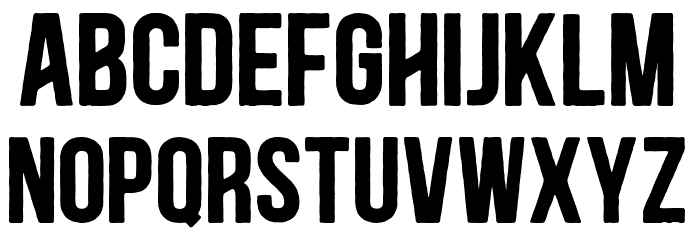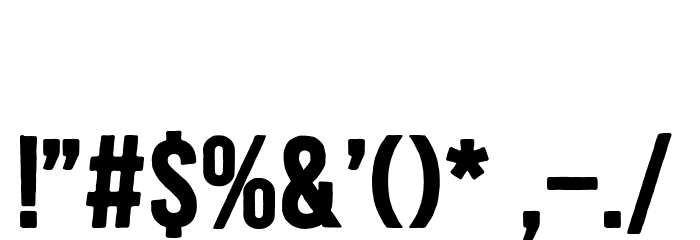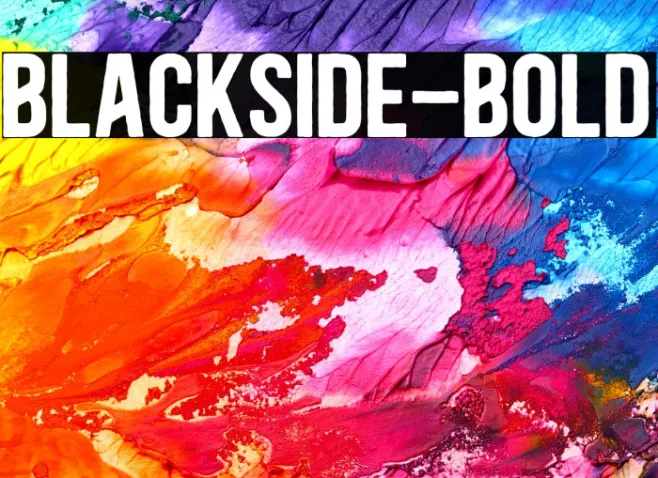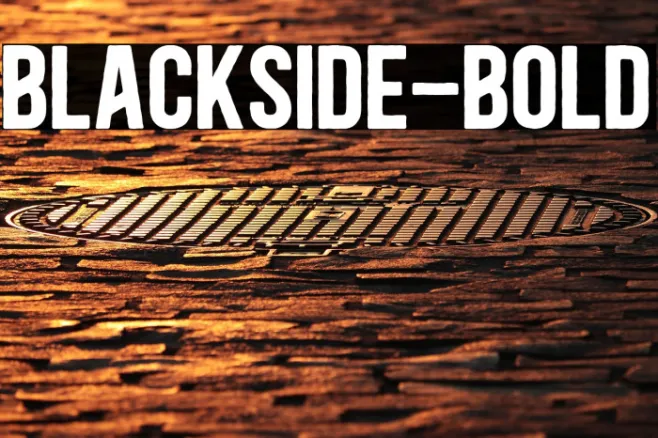
Blackside-Bold Font
This bold and impactful font features strong, thick strokes that convey a sense of power and confidence. The uppercase letters are uniform in height, with a slightly condensed width that emphasizes their boldness. The characters have a rugged, textured appearance, adding a touch of vintage charm. The font's design is straightforward yet striking, making it ideal for attention-grabbing headlines and titles. The special characters maintain the same bold style, ensuring consistency across all text elements.
A bold, textured font with a vintage feel, perfect for impactful headlines.
- Proposed Projects: Ideal for posters, branding, and advertising where a strong visual impact is needed.
- Overall Style: Vintage